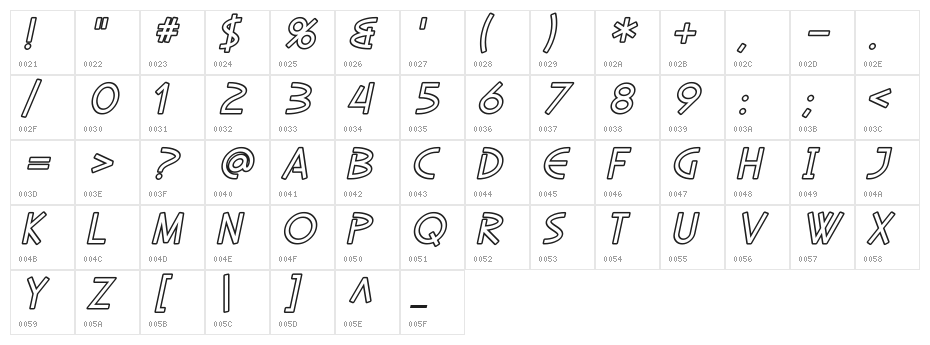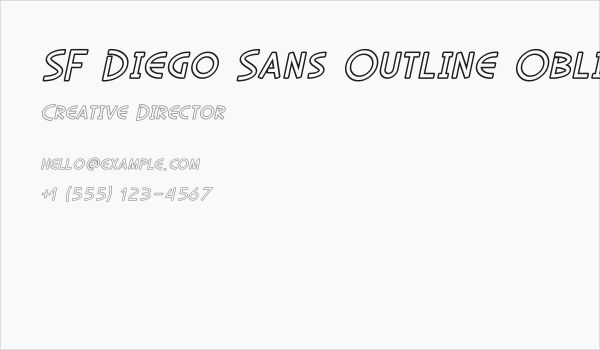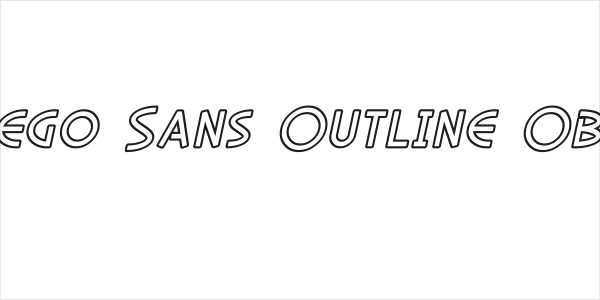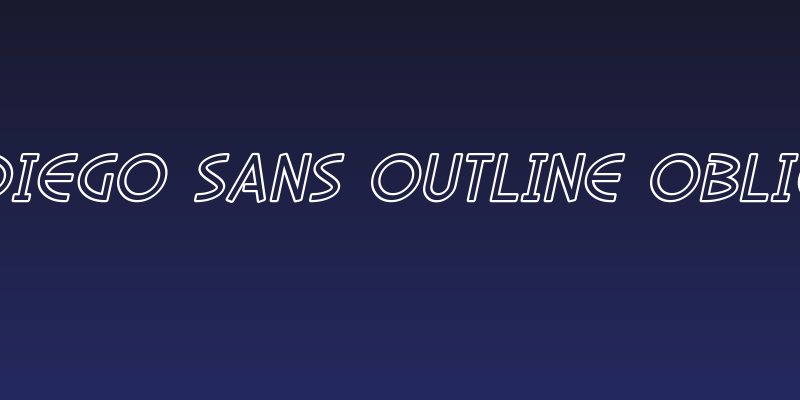
SF Diego Sans Outline Oblique Font
SF Diego Sans Outline Oblique Description
This font features a modern, outlined style with an oblique slant, giving it a dynamic and contemporary appearance. The characters are sans-serif, with clean lines and a uniform stroke width that maintains clarity and readability. The outline effect adds a layer of depth, making it suitable for eye-catching designs. The uppercase and lowercase letters maintain a consistent style, with numerals and special characters following the same design principles. The overall look is sleek and stylish, perfect for projects that require a bold statement.
| Proposed Projects | Ideal for branding, posters, headlines, and digital media where a modern and bold statement is needed. |